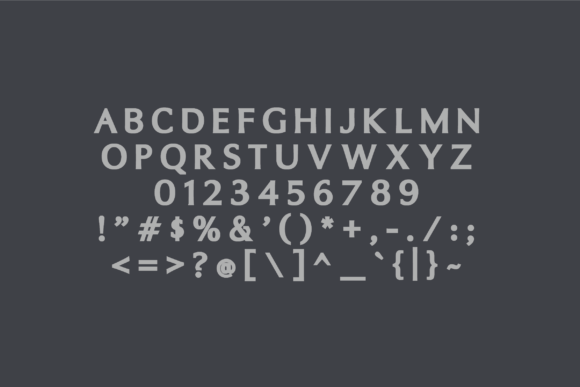
Introducing Moduluxe Font: The Ultimate Choice for Bold and Modern Designs
In the world of typography, a font can make or break a design. When it comes to creating a lasting impression, the right font can elevate your project from ordinary to extraordinary. This is where Moduluxe Font comes into play – a bold, modern, all-caps sans-serif font designed to make a statement. In this article, we’ll dive into the features, benefits, and uses of Moduluxe Font, and explore why it’s the perfect choice for your next design project.
What is Moduluxe Font?
Moduluxe Font is a sleek and contemporary all-caps sans-serif font, crafted to deliver clean, impactful visuals. Its bold and confident design makes it an ideal choice for a wide range of applications, from logos and headlines to posters, packaging, and digital content. Built with clarity and style in mind, Moduluxe Font brings a strong, professional look to any design, making it perfect for branding, tech, fashion, and creative projects.
Key Features of Moduluxe Font
- Bold and Modern Design: Moduluxe Font boasts a bold and modern aesthetic, making it perfect for designs that require a strong visual impact.
- All-Caps Sans-Serif Font: Its all-caps design ensures that your text stands out, while the sans-serif style provides a clean and minimalist look.
- Standard Latin Characters, Punctuation, and Numerals: Moduluxe Font includes a comprehensive set of standard Latin characters, punctuation, and numerals, making it easy to use for a variety of design projects.
- Highly Versatile: This font is designed to be simple to use and highly versatile, allowing you to apply it to various design projects with ease.
- Ready to Enhance Your Next Design: With its bold minimalism, Moduluxe Font is ready to elevate your next design project with a professional touch.
Who is Moduluxe Font for?
Moduluxe Font is designed for a wide range of users, including:
- Graphic Designers: Whether you’re working on a logo, brochure, or poster, Moduluxe Font provides a professional and modern look that’s sure to impress.
- Branding and Marketing Professionals: Create a strong brand identity with Moduluxe Font, perfect for creating a lasting impression on your target audience.
- Web Designers and Developers: Use Moduluxe Font to add a bold and modern touch to your website, making it stand out from the competition.
- Fashion and Tech Enthusiasts: If you’re working on a project that requires a sleek and contemporary look, Moduluxe Font is the perfect choice.
Benefits of Using Moduluxe Font
So, why choose Moduluxe Font for your next design project? Here are some benefits of using this versatile font:
- Professional Look: Moduluxe Font provides a professional and modern look that’s perfect for a wide range of design projects.
- Easy to Use: With its simple and intuitive design, Moduluxe Font is easy to use, even for those without extensive design experience.
- Highly Versatile: This font can be used for a variety of design projects, from logos and headlines to posters and digital content.
- Bold and Impactful: Moduluxe Font is designed to make a statement, making it perfect for designs that require a strong visual impact.
- Pair with Other Fonts: Moduluxe Font pairs well with other sans-serif fonts, creating a clean and modern look.
- Experiment with Colors: Try out different colors to find the perfect match for your design.
- Keep it Simple: Don’t be afraid to keep your design simple and minimalist – Moduluxe Font is designed to shine on its own.
In conclusion, Moduluxe Font is a bold, modern, and highly versatile font that’s perfect for a wide range of design projects. With its clean and impactful visuals, professional look, and ease of use, this font is sure to elevate your next design project. Whether you’re a graphic designer, branding professional, or web developer, Moduluxe Font is the perfect choice for adding a bold and modern touch to your work.